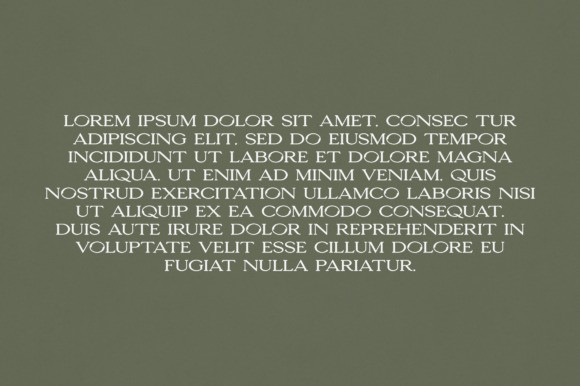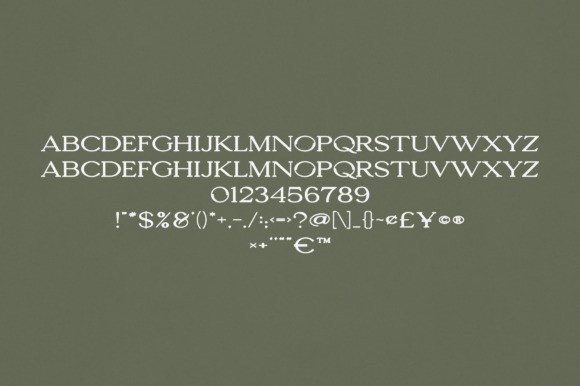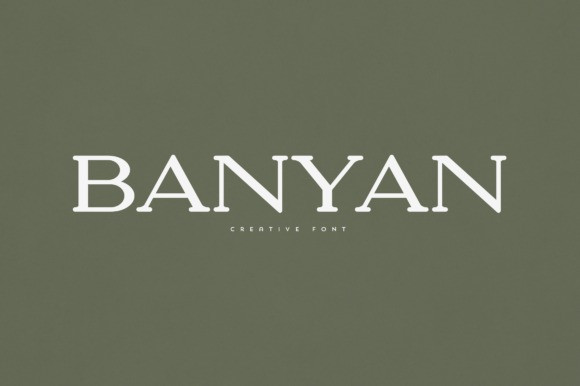
Banyan Font
Banyan Font is an elegant and versatile font that will make your typography truly unique! It will enchant every logo, branding, headline, or plain text!